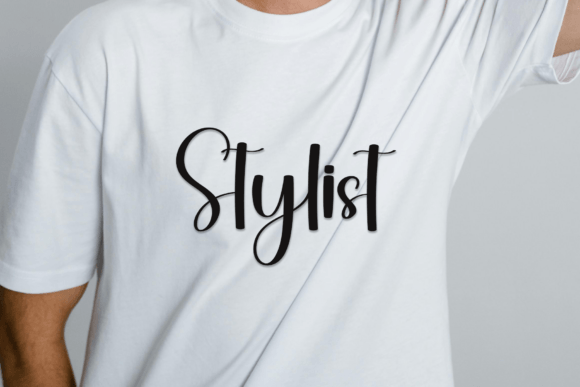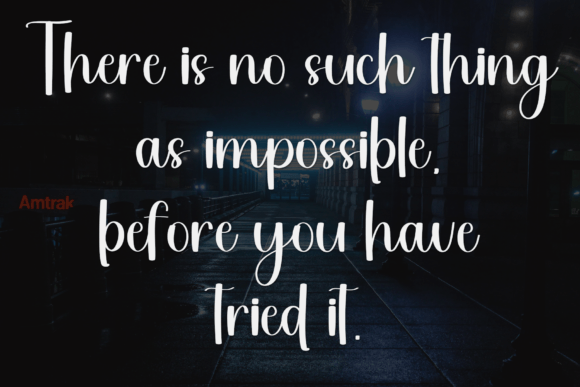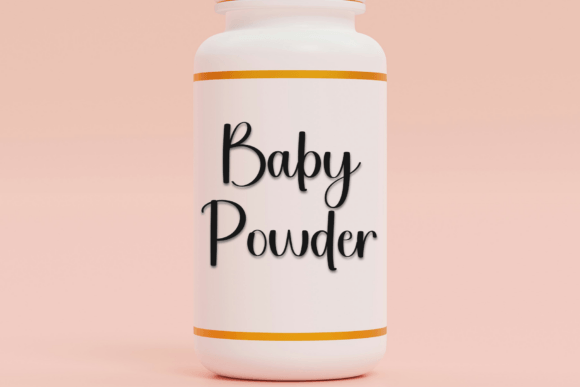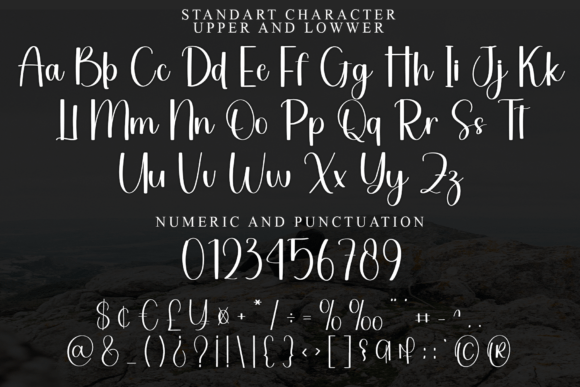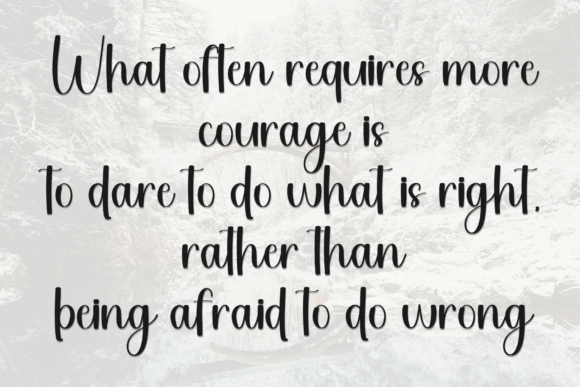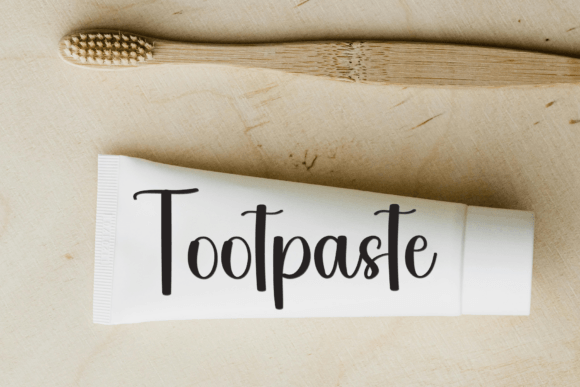
The Charm of America Font: A Handwritten Design Delight
I still remember the design project that led me to discover the America font. I was working on a branding project for a small business, and my client asked for a logo that felt personal and friendly. I spent hours scouring font websites, but nothing seemed quite right. That was until I stumbled upon the America font, with its casual, handwritten charm. ✨
- ✨ The flowing, imperfect strokes that give it a friendly and relaxed feel
- ✅ The varying letter sizes and slants that make the text feel like it’s been written by hand
- 💫 The OpenType features that allow for creative experimentation
- 🤔 Some letters may appear a bit inconsistent in terms of spacing, which can affect readability at smaller sizes
- ⚠️ Limited support for non-English characters, which may limit its use in multilingual projects
The Backstory Behind America Font
The America font was designed with the intention of capturing the friendly, personal feel of handwritten text. The designer aimed to create a font that would evoke the feeling of writing with a pen or marker, with all the imperfections and quirks that come with it. 💫
A: The America font is a handwritten font designed to evoke a friendly, personal feel. It’s perfect for creative projects that require a relaxed, approachable vibe.
A: While the America font is beautiful, it’s best suited for headlines, titles, and short paragraphs. Its unique character and imperfect strokes may make it less suitable for longer blocks of text.